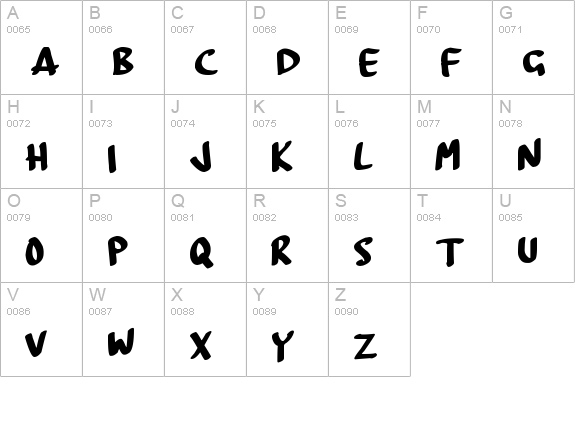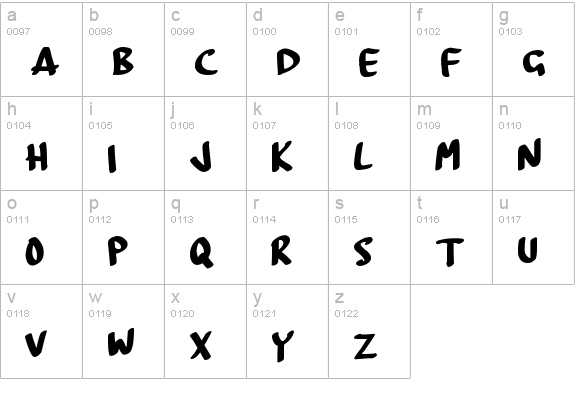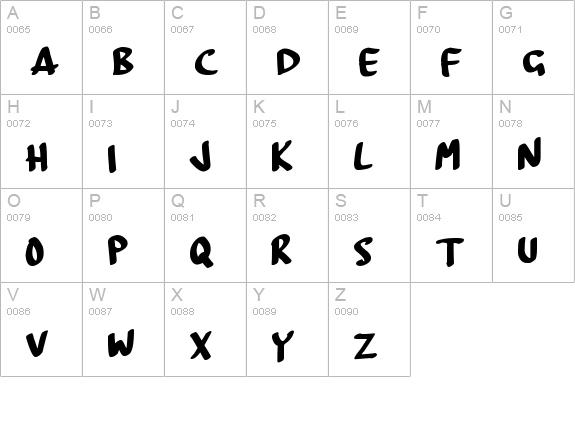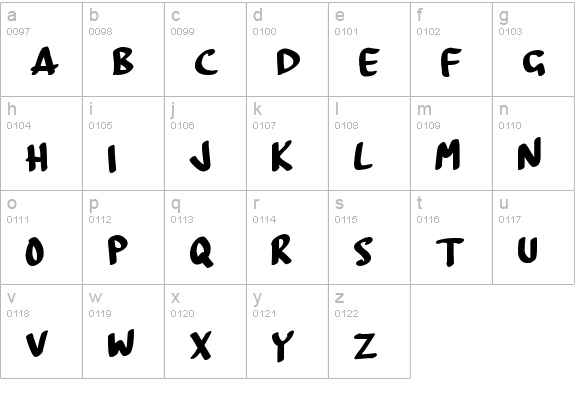
Board Marker Font Details
Board Marker is a donationware font in the Script > Handwritten category, designed by Darrell Flood. It has been downloaded 240 times and is available for Windows, Mac and Linux.
Introducing Board Marker font, a playful and versatile typeface perfect for adding a touch of creativity to your designs. This fun and whimsical font mimics the look of hand-drawn letters with its bold strokes and quirky characters, making it ideal for projects that require a casual and friendly vibe. Whether you're designing posters, greeting cards, or social media graphics, Board Marker font is sure to make your text stand out.